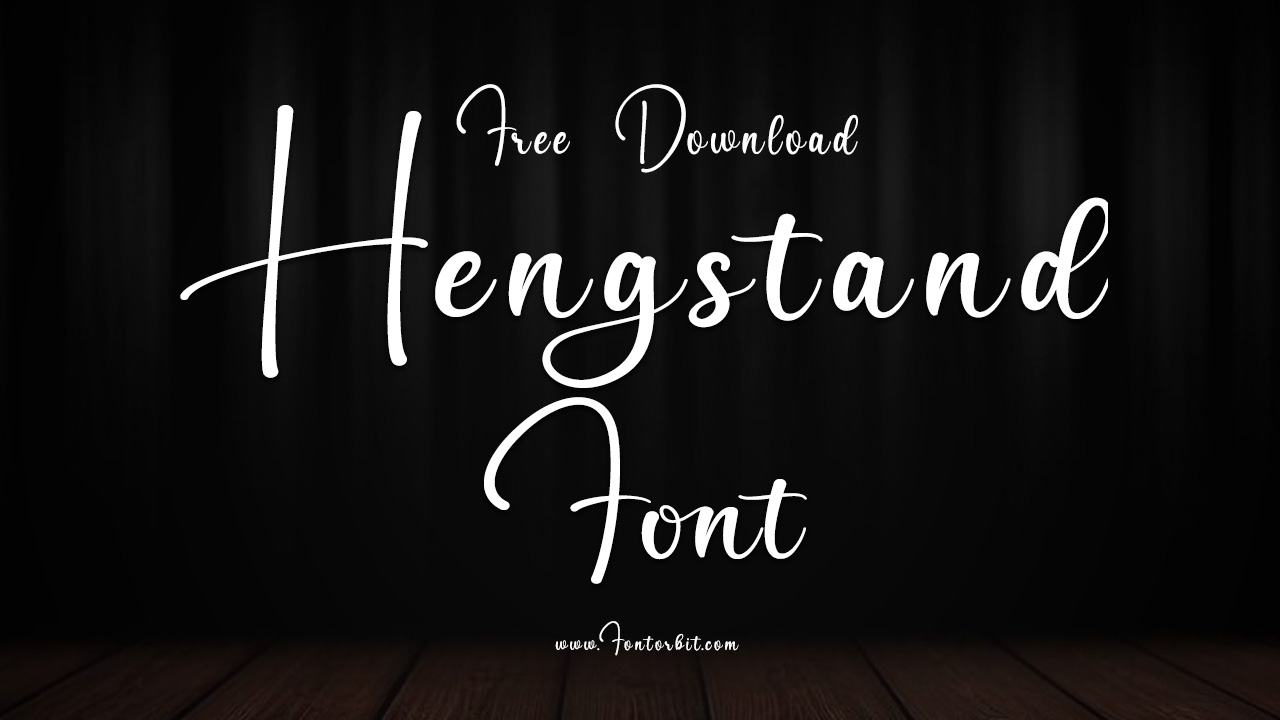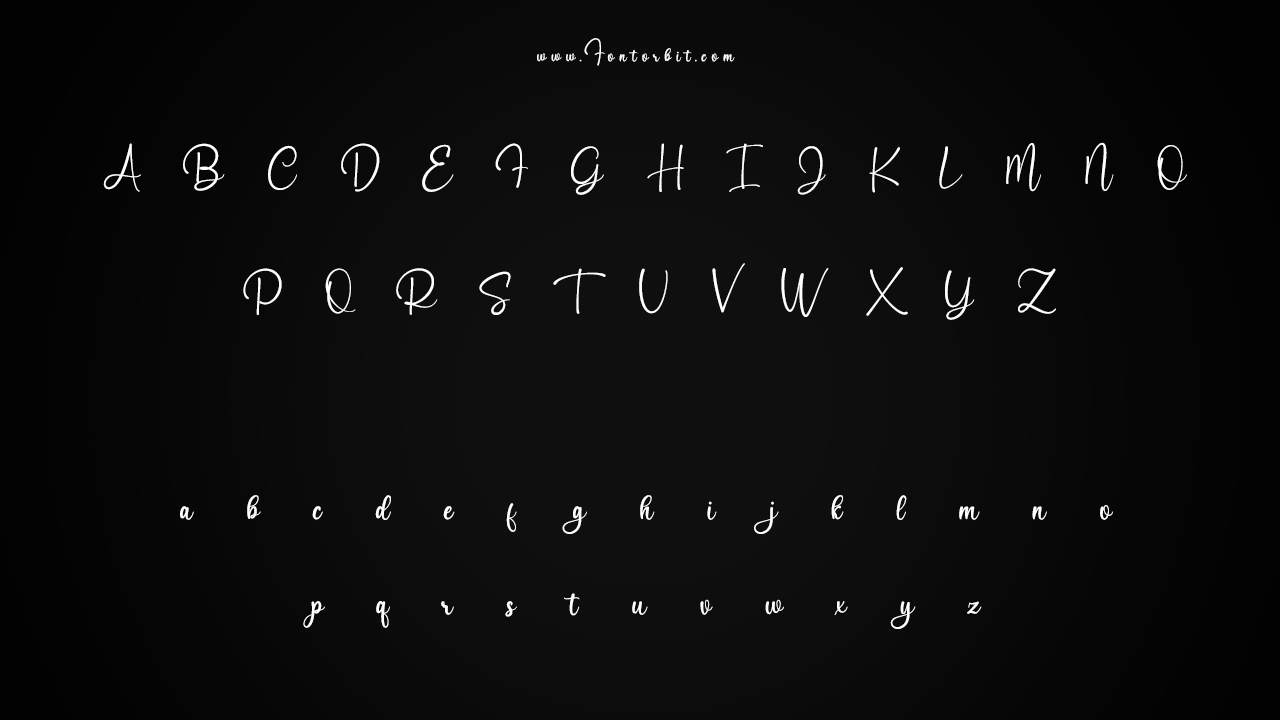
The Hengstand Font, designed by Basnistudio, offers a naturally elegant handwritten style perfect for branding, websites, and editorial designs.
Features include a refined handwritten style, multilingual support (90 languages), and availability in OTF, TTF, and WOFF formats, offering flexibility for various design projects. This versatile typeface features clean, precise characters and extensive multilingual support.
The Hengstand Font Family
a. Hengstand Handwritten Font
| Style: | Handwritten |
The Hengstand Font is perfect for designs that require a touch of elegance and precision. Its natural handwritten style is ideal for branding, editorial work, and any project where a refined yet personal touch is needed.
The Hengstand Font embodies natural elegance with a precise handwritten style, making it a great choice for a range of creative projects. Free for personal use, it adds sophistication and charm to branding, websites, and more, offering versatility and a personal touch to your designs.
1.What Are The Disadvantages Of Using Hengstand Font In Print Design?
Due to its intricate handwritten style, Hengstand Font may appear less legible at smaller sizes in print, potentially affecting readability and clarity.
2.What Are The Advantages Of Using Hengstand Font In Web Design?
Hengstand Font’s elegant handwritten style adds sophistication to web design, enhancing visual appeal and readability, particularly when paired with clean, sans-serif fonts for contrast.
3.What Is The Best Way To Pair Hengstand Font With Other Fonts?
Pair Hengstand Font with clean, sans-serif fonts like Helvetica or Arial to balance its intricate style and ensure readability, creating a visually appealing contrast in your design.
4.What Are The Best Practices For Using Hengstand Font In Branding?
Use Hengstand Font for headlines and prominent text in branding to highlight elegance and personality while opting for simpler fonts for body text to maintain readability.
5.What Are The Unique Characteristics Of Hengstand Font?
Hengstand Font features a natural, elegant handwritten style with precise strokes and extensive multilingual support, offering a refined yet personal touch to various design projects.